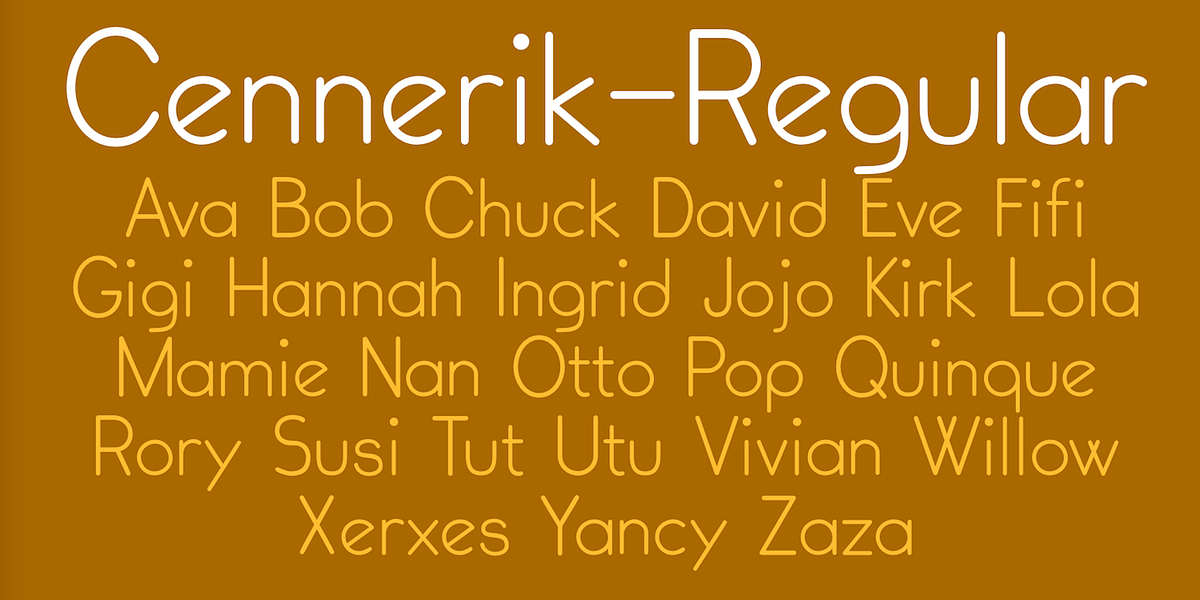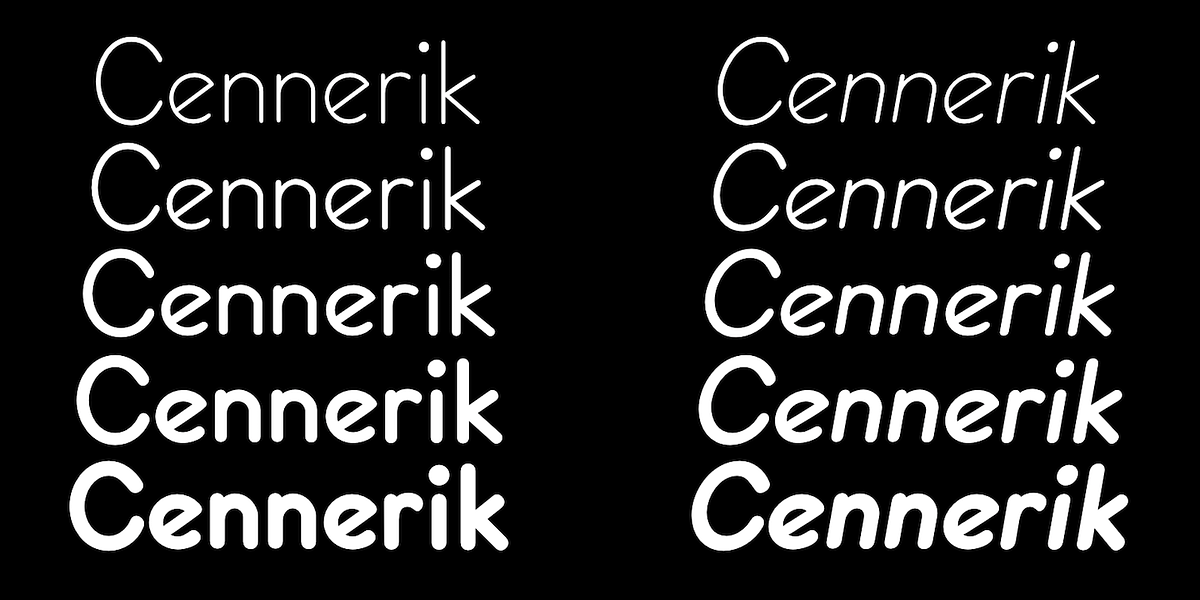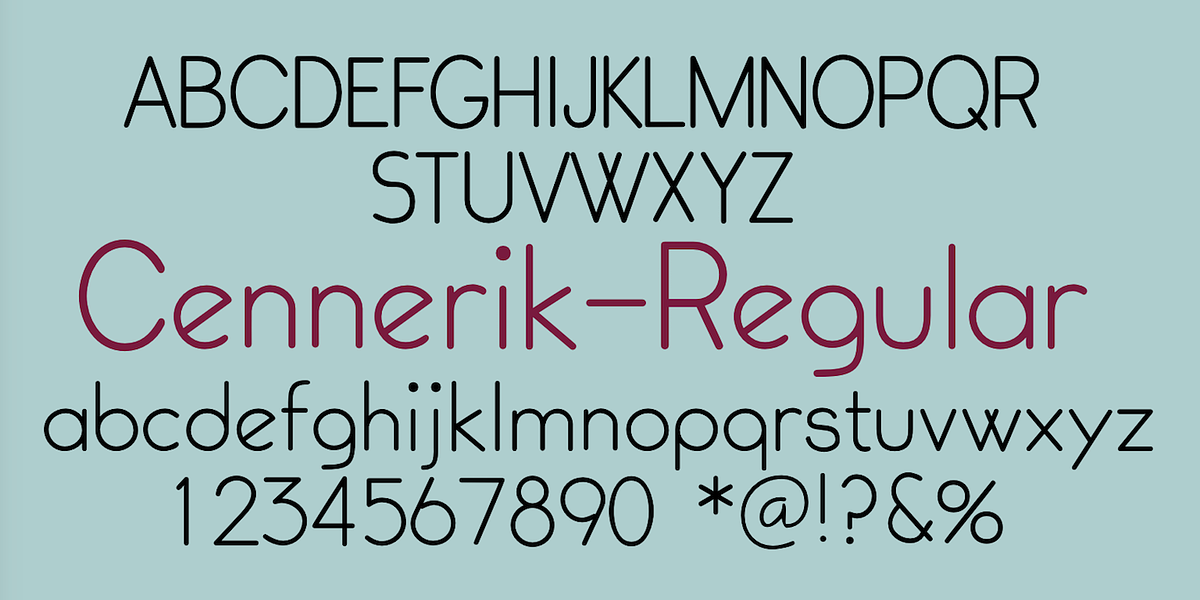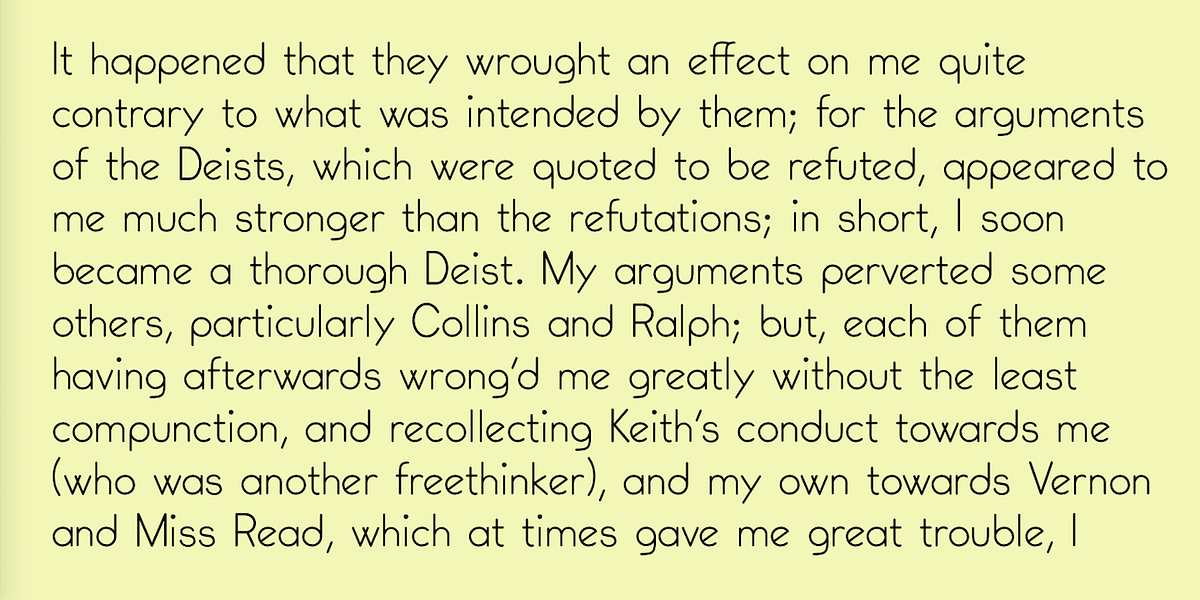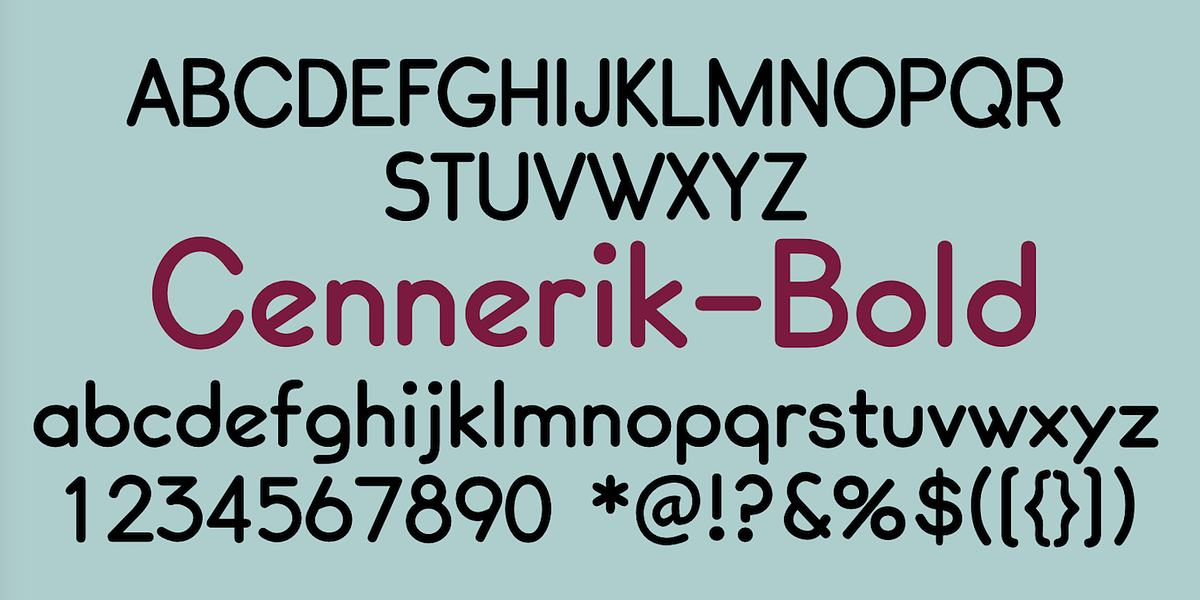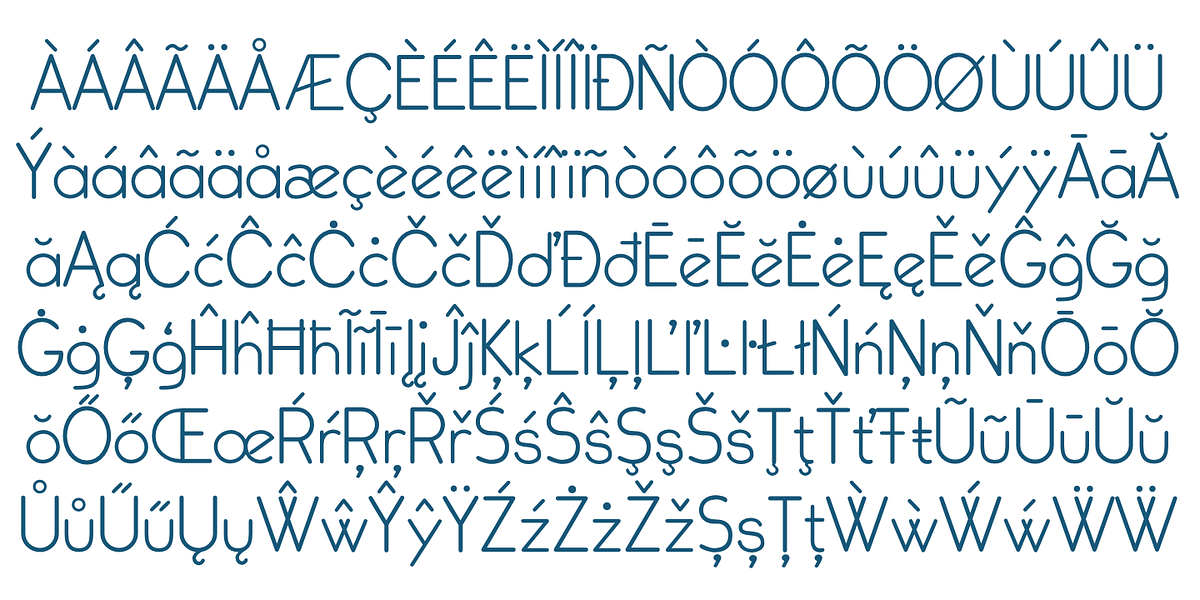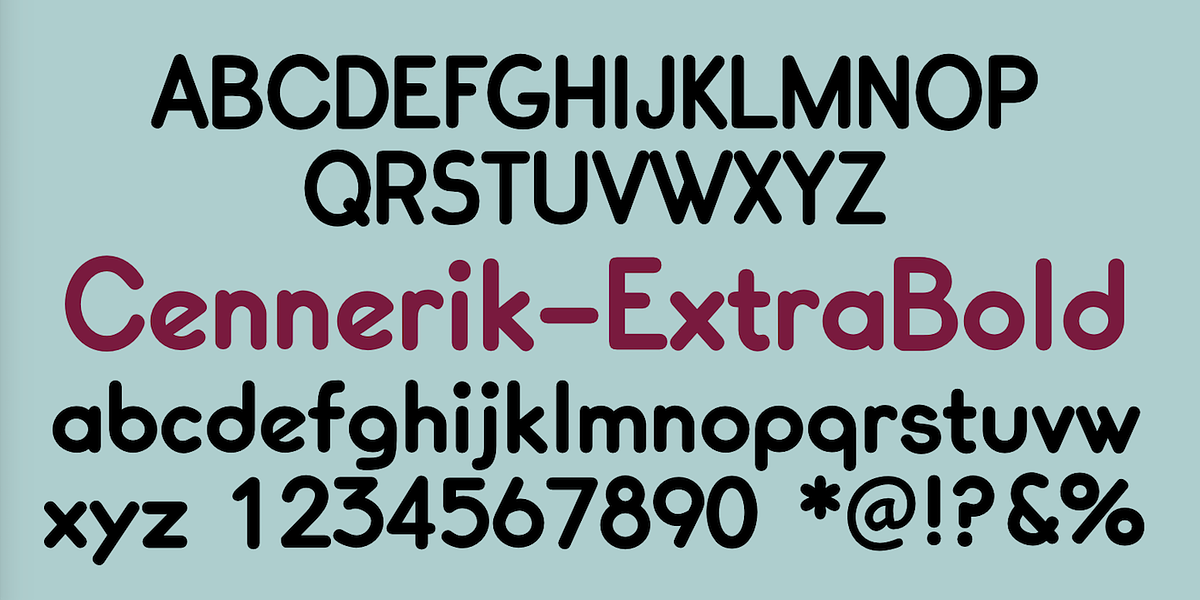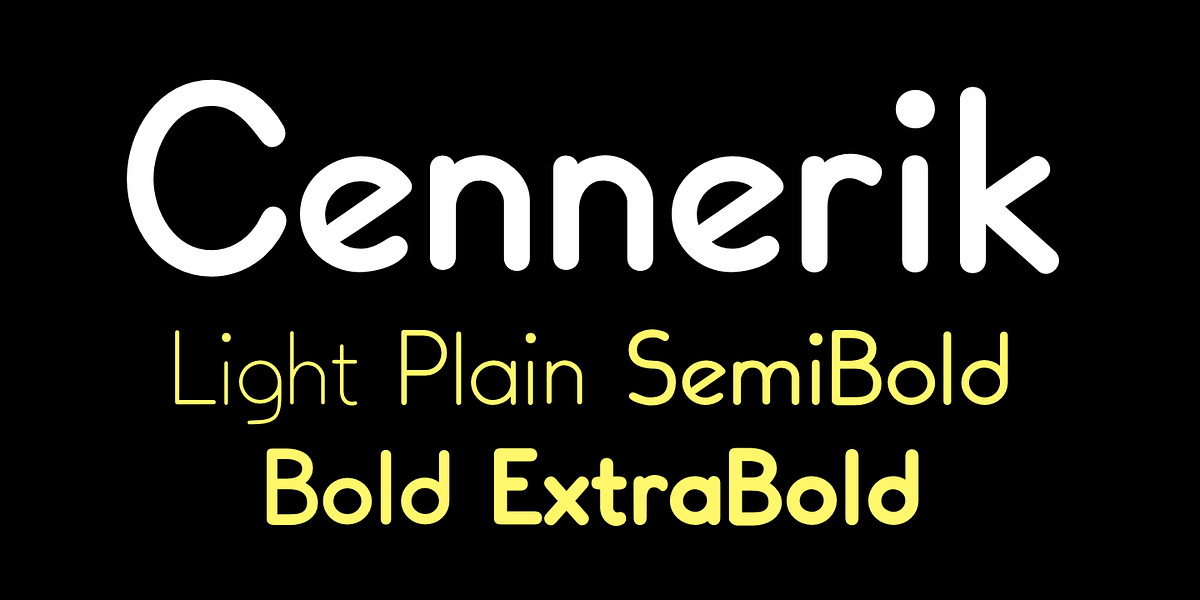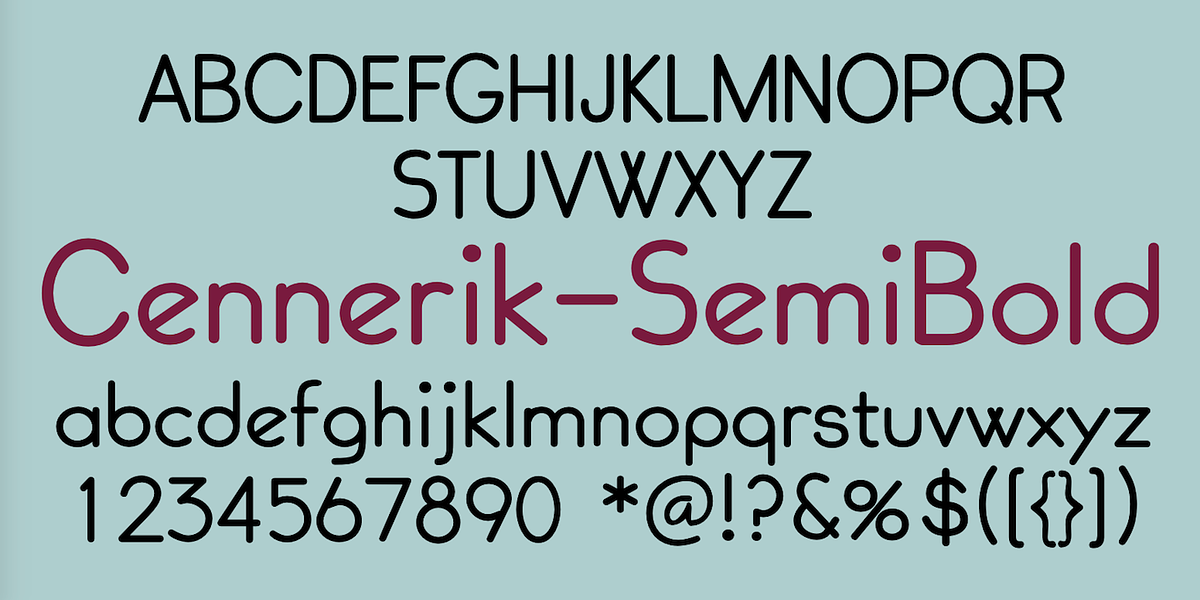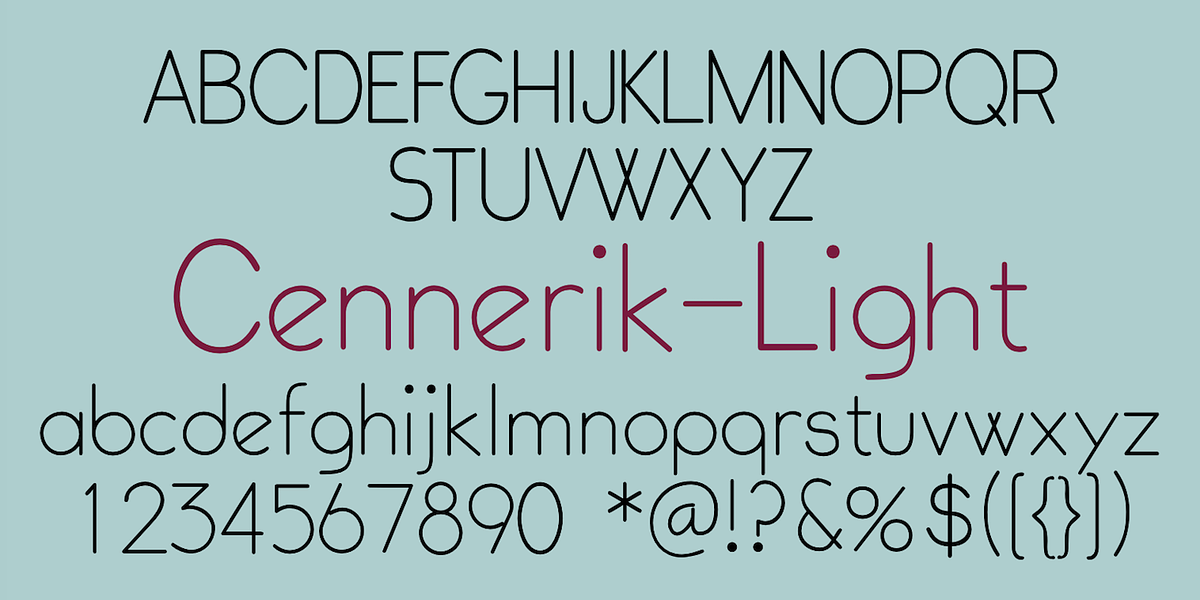
Cennerik
Cennerik is a clean and modern geometric sans-serif typeface characterized by its rounded ends. It is available in five weights (light, regular, semibold, bold, and extrabold) and both upright and italic styles. The font's versatility makes it suitable for a range of applications including body text, headlines, and branding.